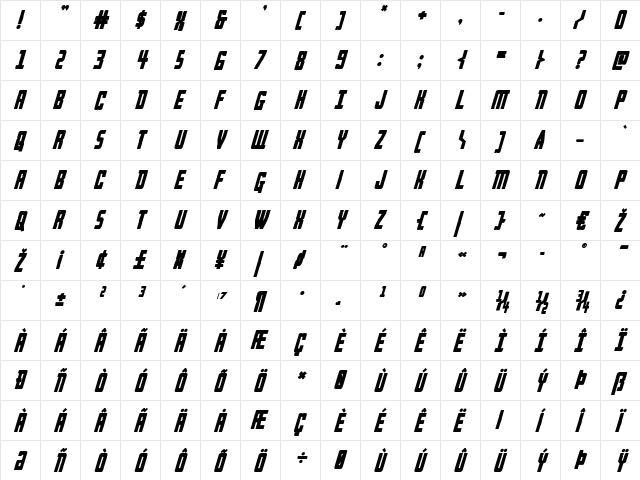
Rockledge Bold Italic Bold Italic
Design Context for Rockledge Bold Italic Typeface
Rockledge Bold Italic takes a measured approach to typography — its balanced proportions and neutral character make it a reliable workhorse for both digital and print work. The slanted form adds forward momentum and visual energy. The heavy weight commands attention and anchors typographic hierarchies.
Pro Tip: Use Rockledge Bold Italic for emphasis, pull quotes, and subheadings where its slanted energy can add rhythm to the layout.